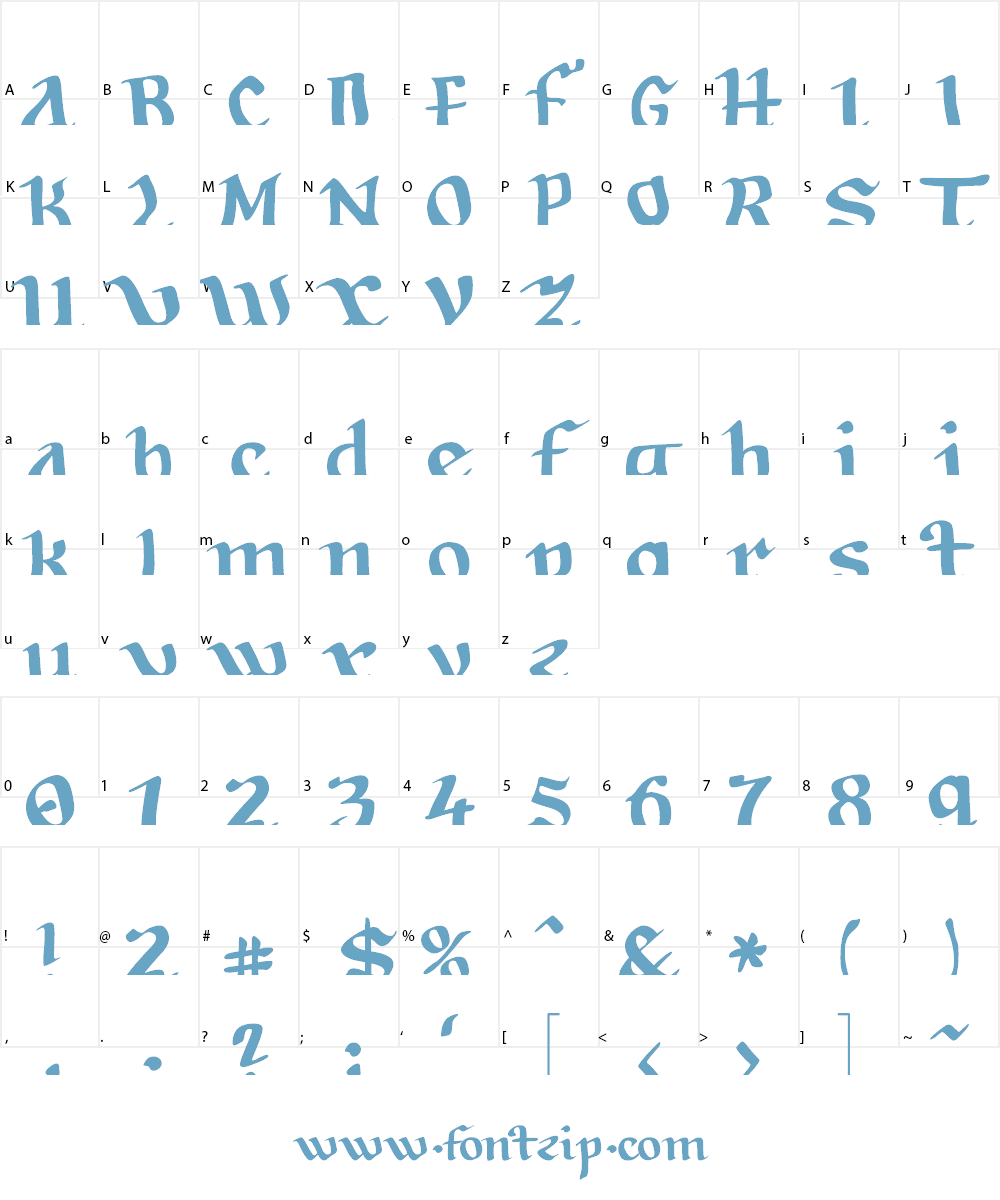
Fonts like shown on the famous road-map Tabula Peutingeriana. The fonts were used to copy the whole map to digitalize it. The handwriting of a medieval copier is included as well as the well-drawn capital-letters used for provinces or oceans.